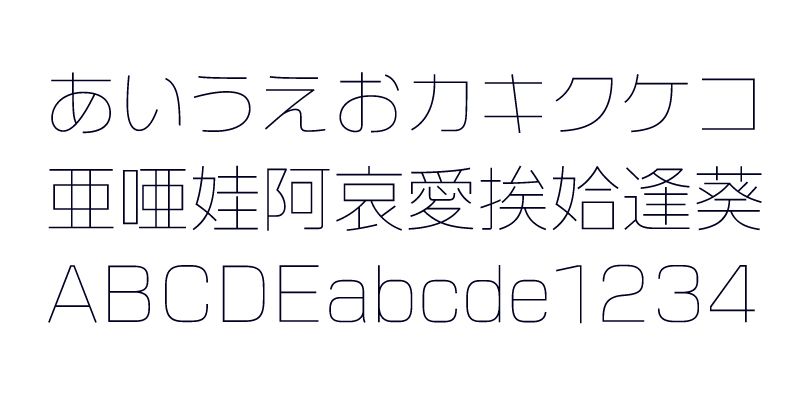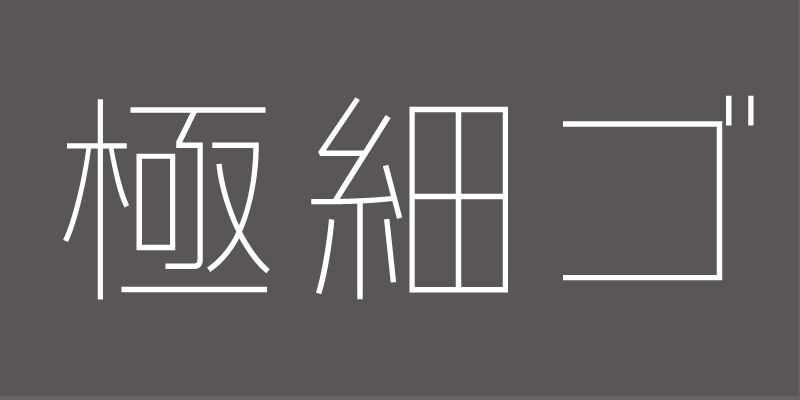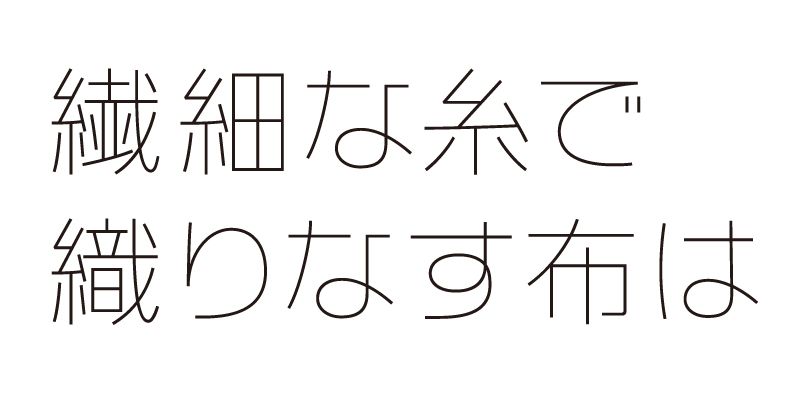
VDL-LogonaGokuHoso is the lightest weight in the Logona Family, an authentic Gothic typeface that further expands and advances traditional aesthetic refinement while enhancing legibility.
Composed of delicate strokes and generous spacing, this ultra-light Gothic typeface reveals an increasingly fresh and open impression as it is enlarged, transforming into an expressive presence that feels both generous and boldly confident.